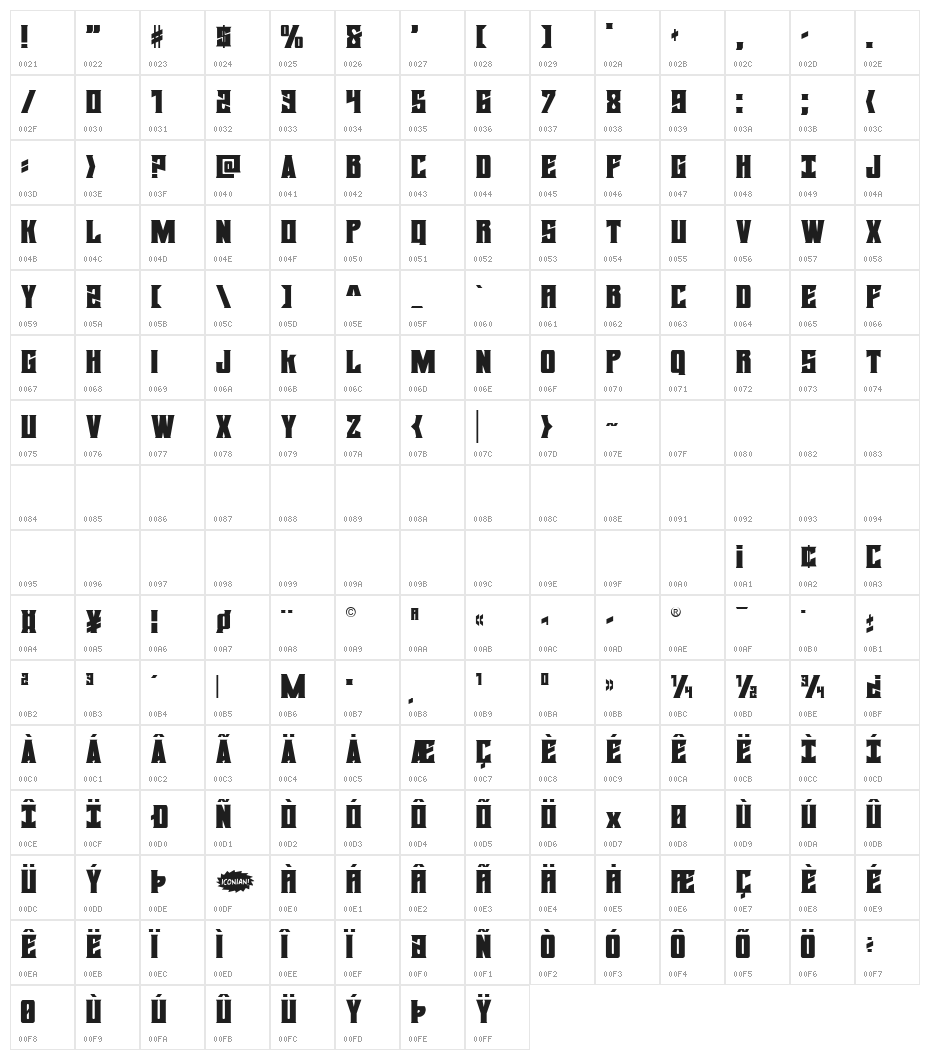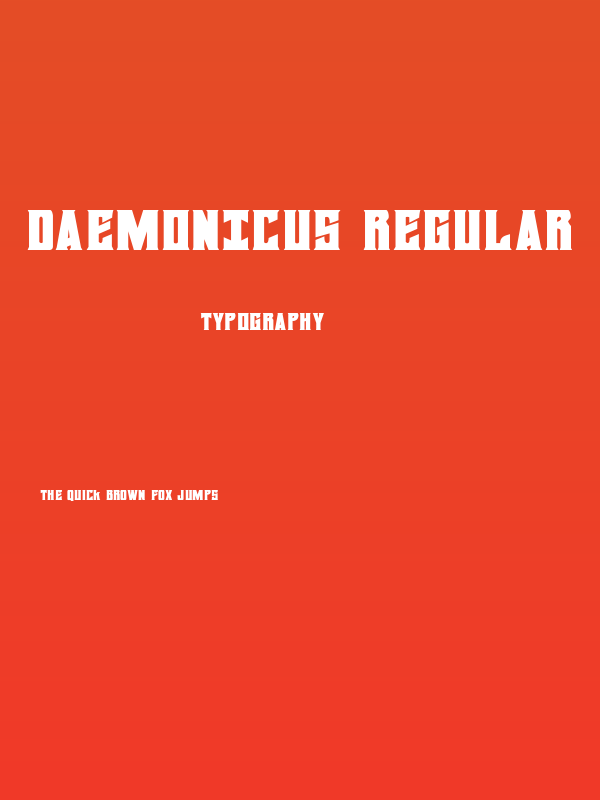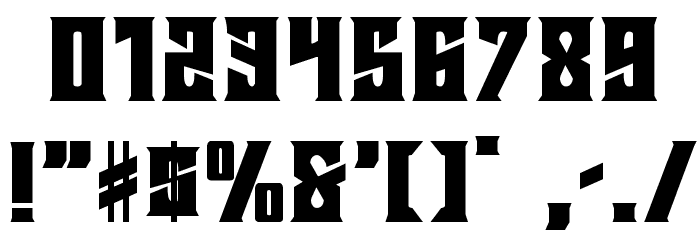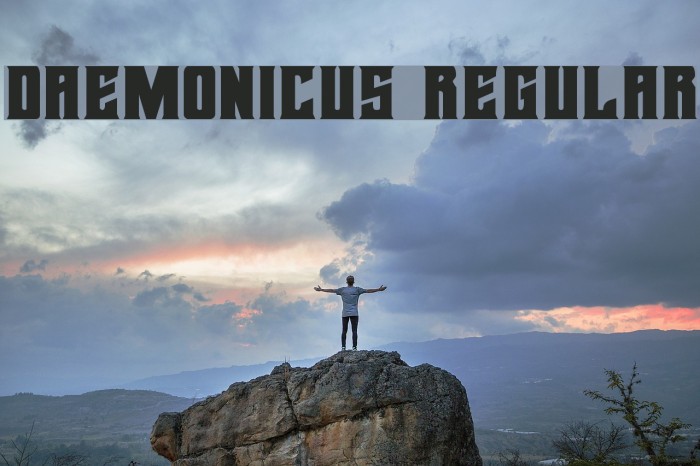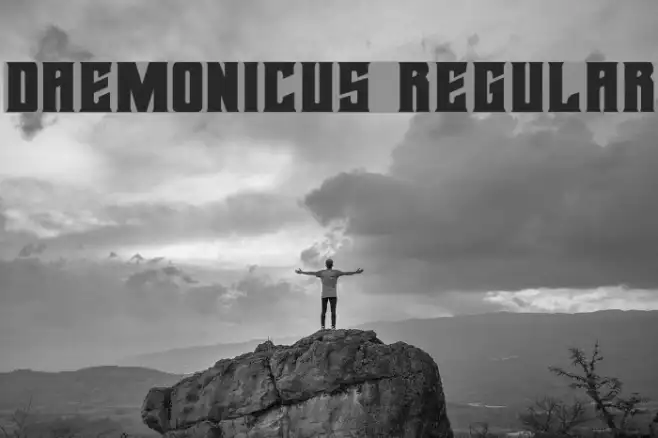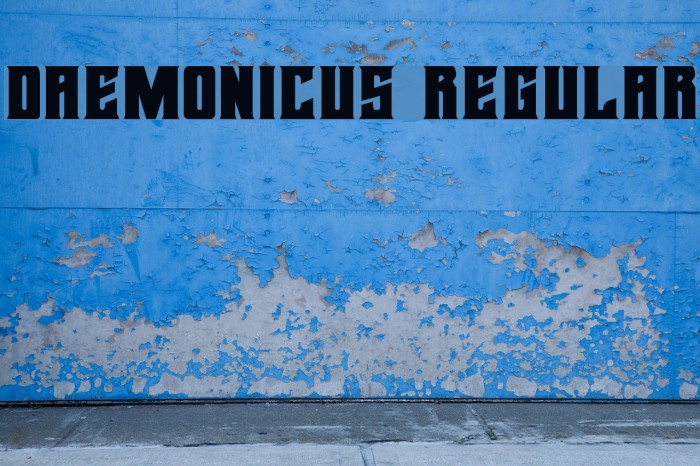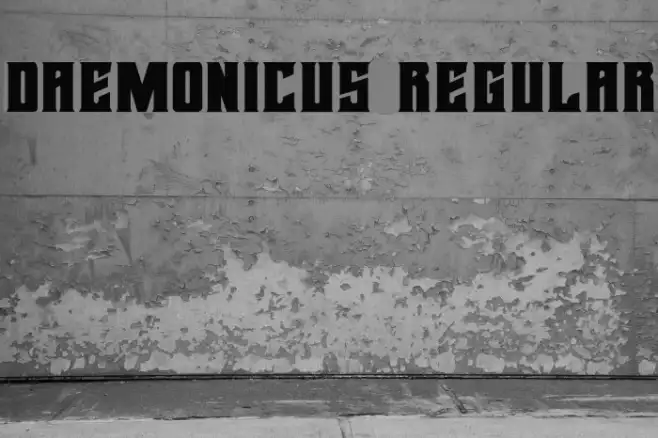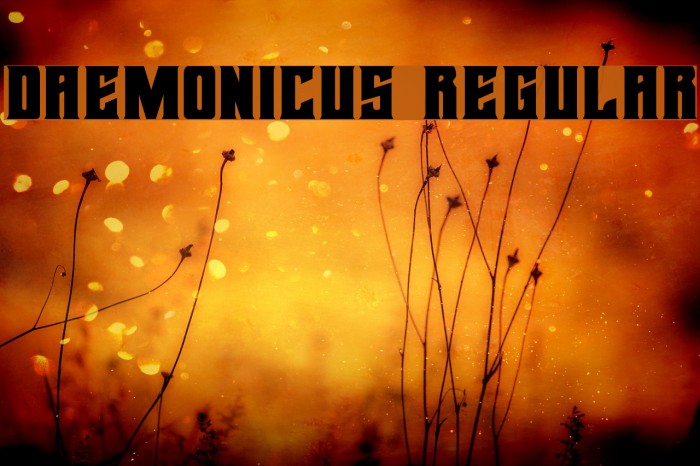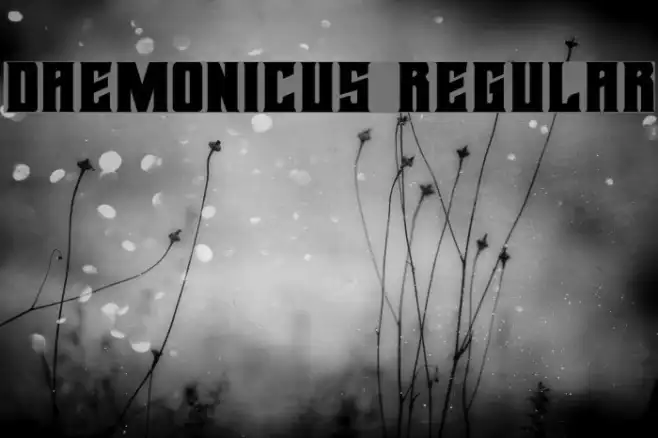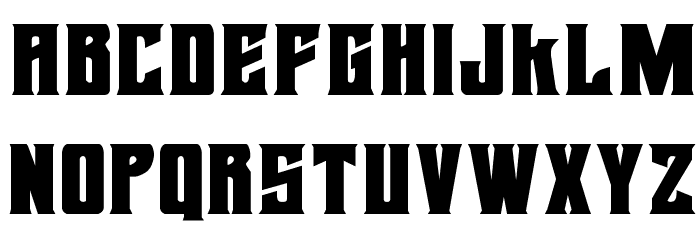
Daemonicus Regular Font
Daemonicus Regular Description
This font features a bold and striking design with sharp, angular edges and a gothic-inspired aesthetic. The characters are heavily stylized, with a strong emphasis on vertical lines and pointed serifs, creating a dramatic and intense appearance. The uppercase and lowercase letters maintain a consistent style, with a uniform height and width that enhances readability despite the intricate design. Numbers and special characters are equally bold, ensuring a cohesive look across all text elements. The font's unique style makes it ideal for projects that require a strong visual impact.
| Overall Style | Gothic, Dramatic |
| Proposed Projects | Ideal for horror-themed designs, album covers, posters, and branding that requires a bold, dramatic impact. |